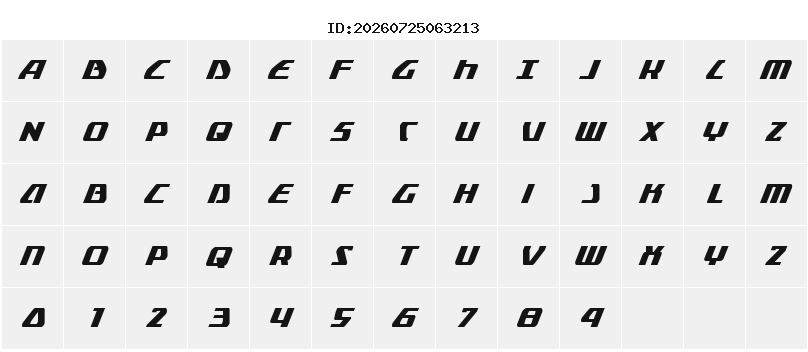
Global Dynamics Condensed Italic Preview
• Font Name: Global Dynamics Condensed Italic
• Font Style: Condensed Italic
• Full Font Name: Global Dynamics Condensed Italic
About Global Dynamics Condensed Italic.ttf
Global Dynamics Condensed Italic.ttf is a modern, elegant sans-serif font designed for ultimate readability and visual harmony. Perfect for branding, headlines, web design, and print materials.